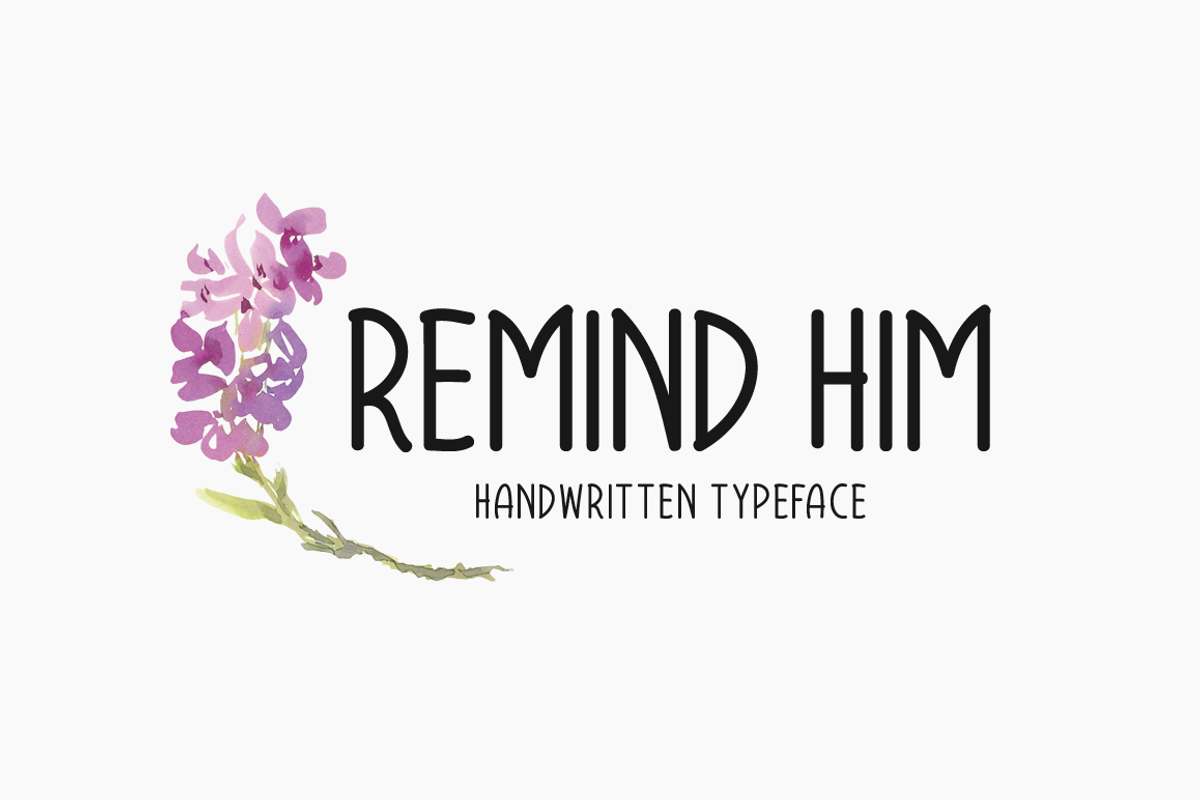
Remind Him Typeface Free Download is a modern, versatile font that combines elegance with readability. Its clean lines and balanced design make it perfect for a wide range of design projects, including branding, website typography, editorial layouts, and logo creation.
The subtle yet strong character of Remind Him allows it to shine in both large headings and smaller body text, offering flexibility without sacrificing style. Whether you're designing for a corporate project or a creative endeavor, this typeface brings both sophistication and legibility to the table.
Its refined yet approachable style works seamlessly in both print and digital formats, ensuring that your message is always clear and striking.